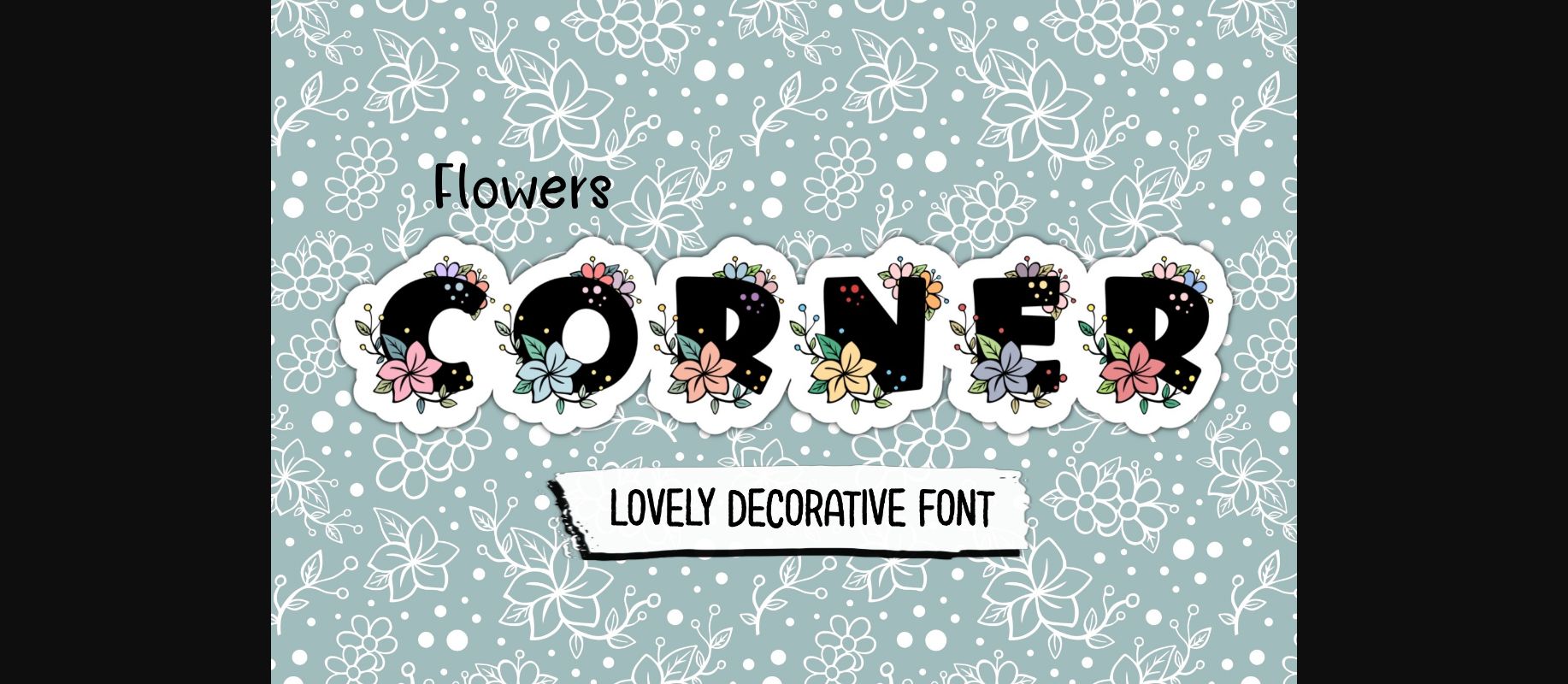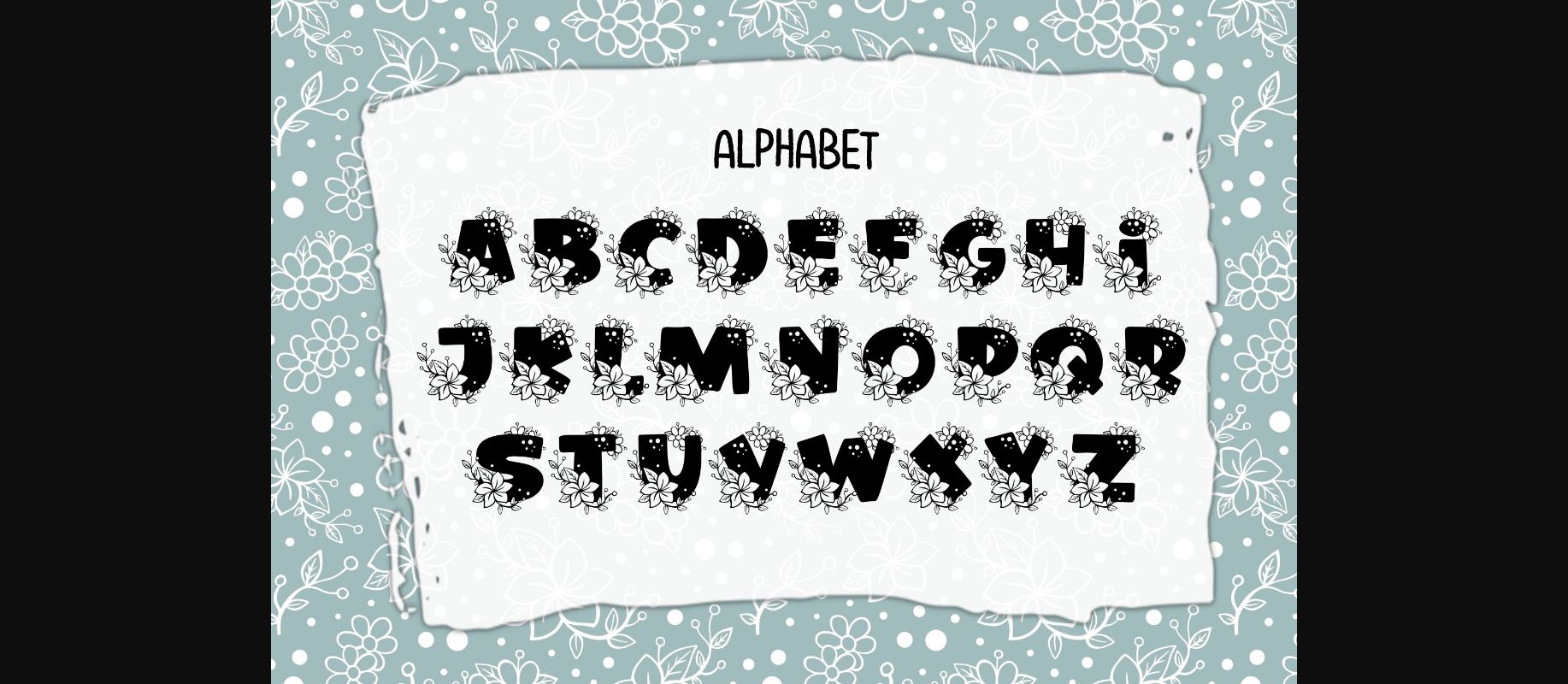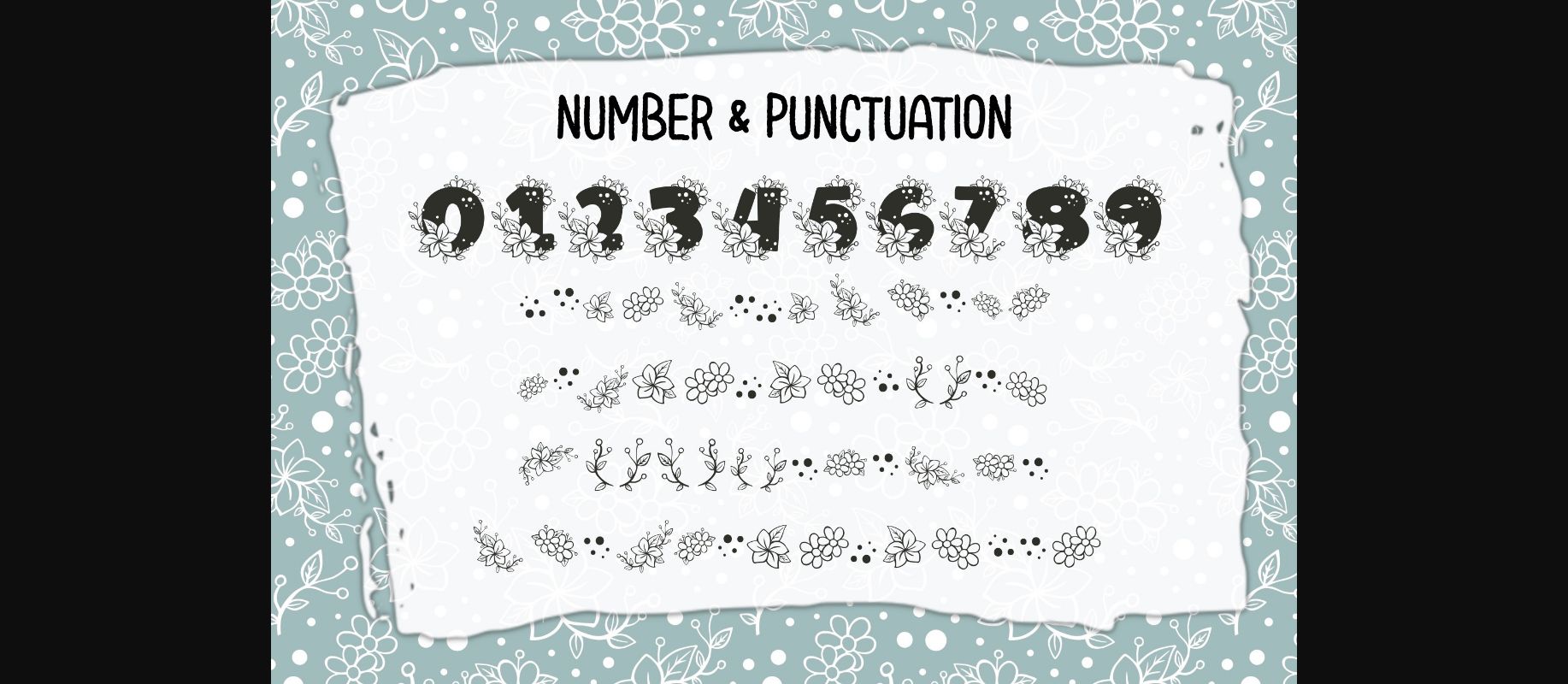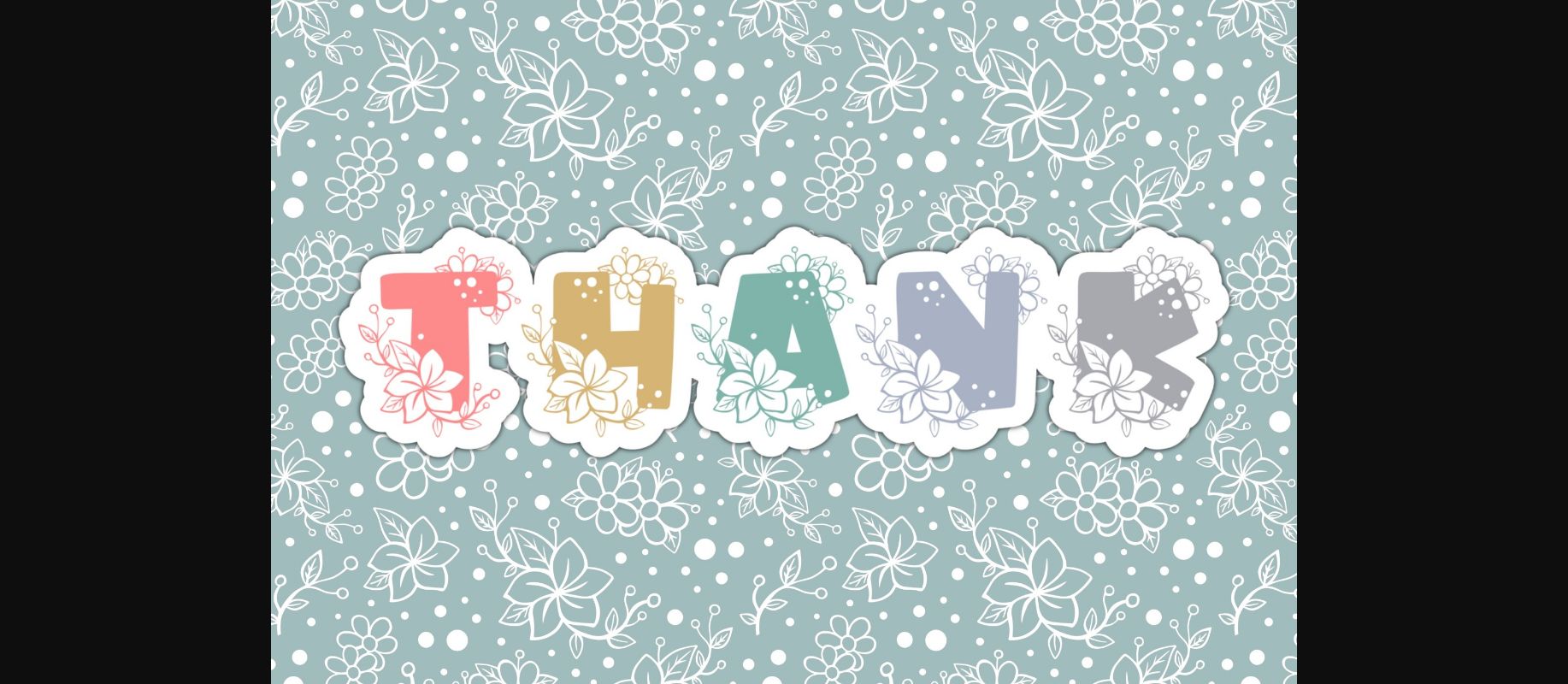
Flowers Corner Font
About Flowers Corner Font
Flowers Corner is a lovely decorative font. This font is the perfect fit for all of your logos, branding, social media, crafty DIY projects, and much more!